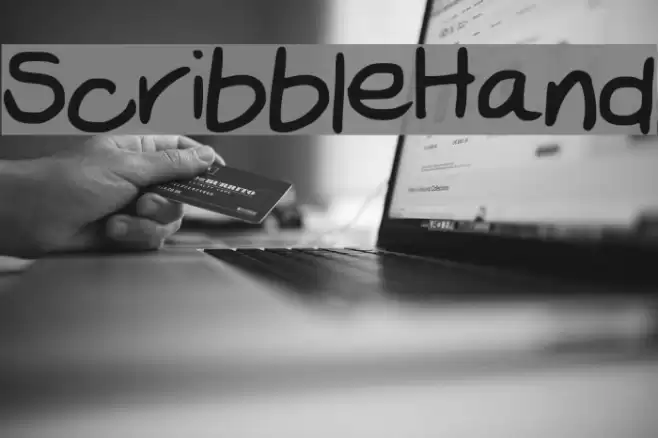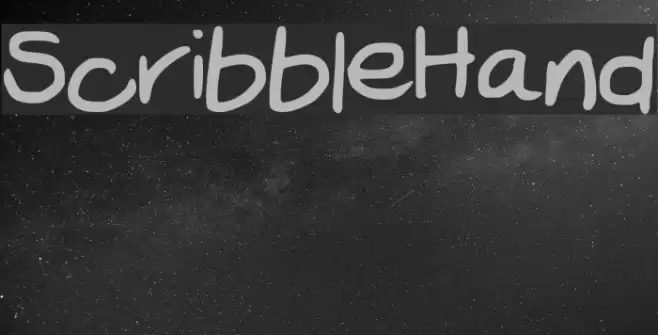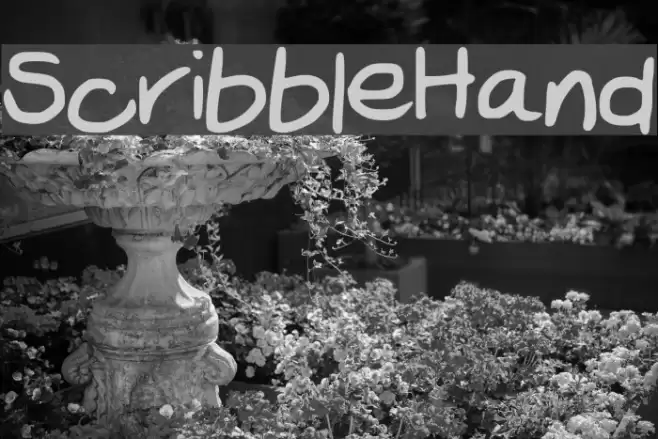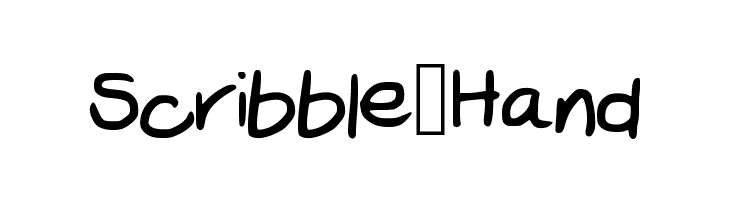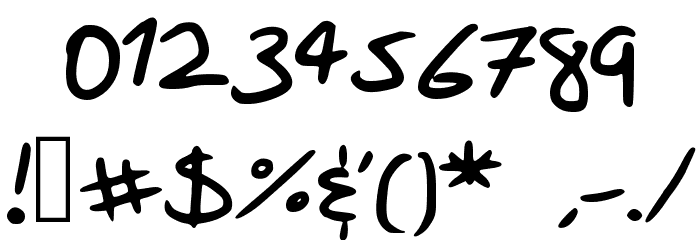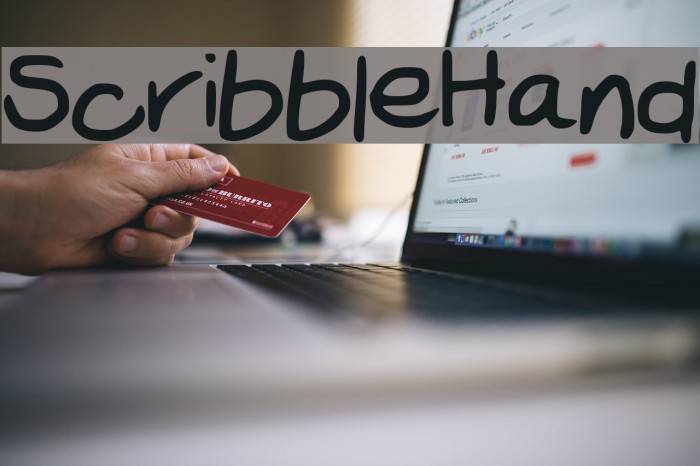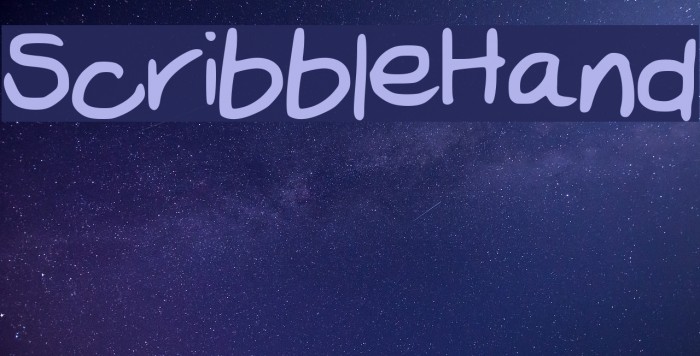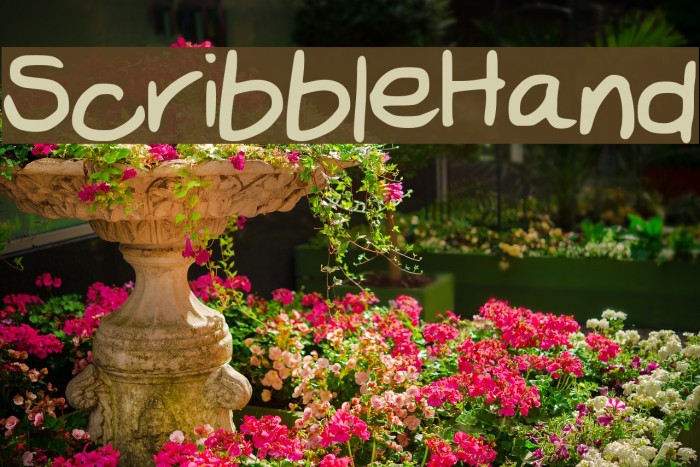
Scribble_Hand Font
Scribble_Hand Description
This playful and informal font mimics the appearance of casual handwriting, with a slightly uneven baseline and varying stroke widths that add to its charm. The letters are rounded and smooth, giving a friendly and approachable feel. Uppercase and lowercase letters maintain a consistent style, with a slight slant that suggests movement and energy. The numerals and special characters are equally whimsical, fitting seamlessly into the overall design. This font is perfect for projects that require a personal touch or a sense of spontaneity.
A playful, handwritten-style font with rounded, smooth letters and a casual feel from Handwritten fonts.
- Proposed Projects: Ideal for greeting cards, children's books, informal invitations, and playful branding.
- Overall Style: Casual
- Use Case: Headlines, Informal text, Creative projects